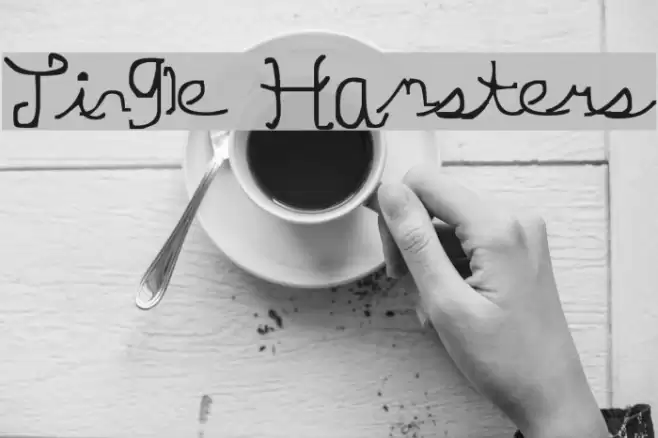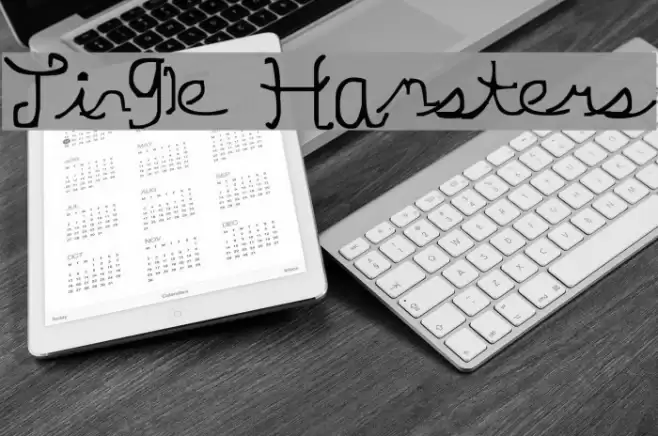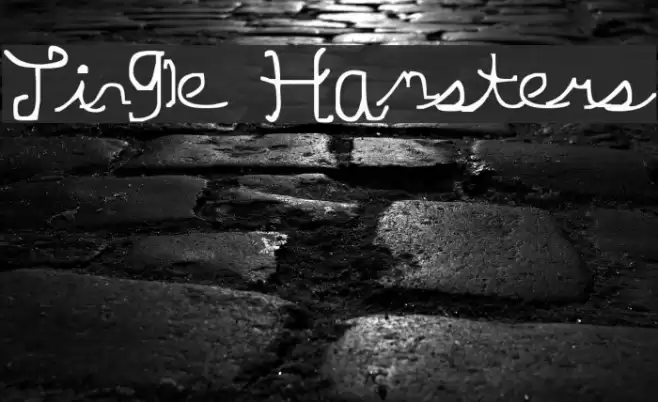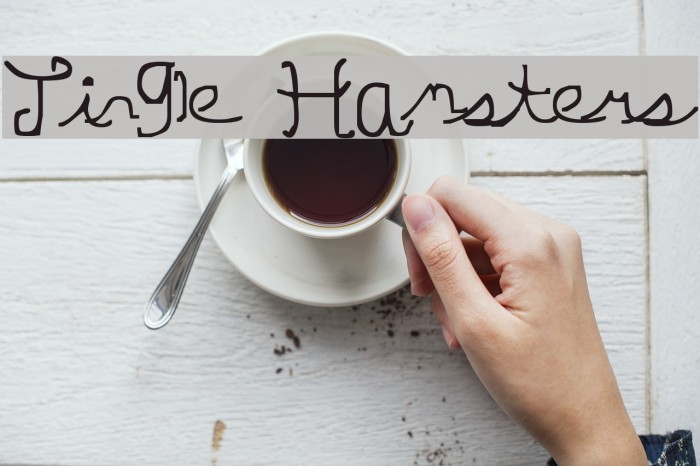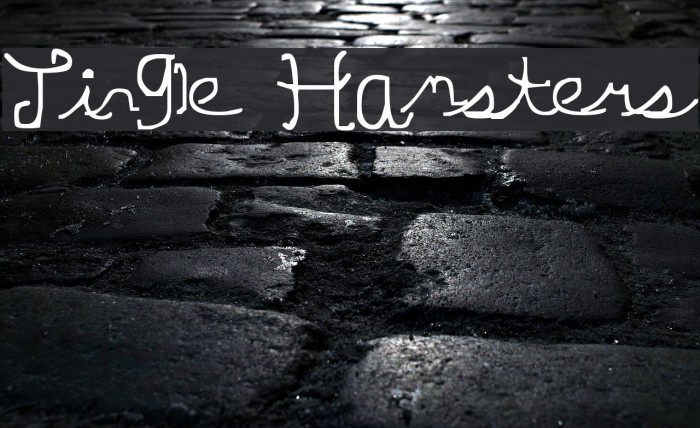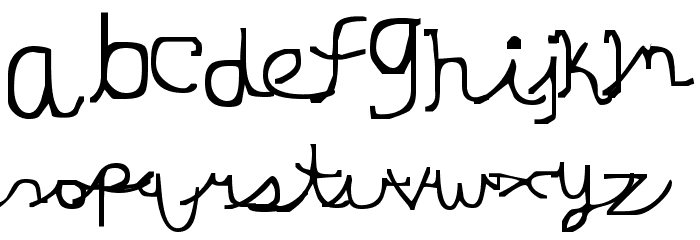
Jingle Hamsters Font
Jingle Hamsters Description
This playful and whimsical font features a hand-drawn style with irregular, wavy lines that give it a lively and dynamic appearance. The uppercase letters are tall and narrow, with a slight tilt that adds to the casual feel. The lowercase letters maintain the same playful character, with some letters featuring loops and curls that enhance the font's unique personality. The overall design is reminiscent of a child's handwriting, making it perfect for projects that require a fun and informal touch. The font lacks uniformity in stroke width, adding to its charm and making it stand out in creative designs.
A playful, hand-drawn font with wavy lines and a whimsical style from Handwritten fonts.
- Proposed Projects: Ideal for children's books, playful branding, greeting cards, and creative posters.
- Overall Style: Whimsical